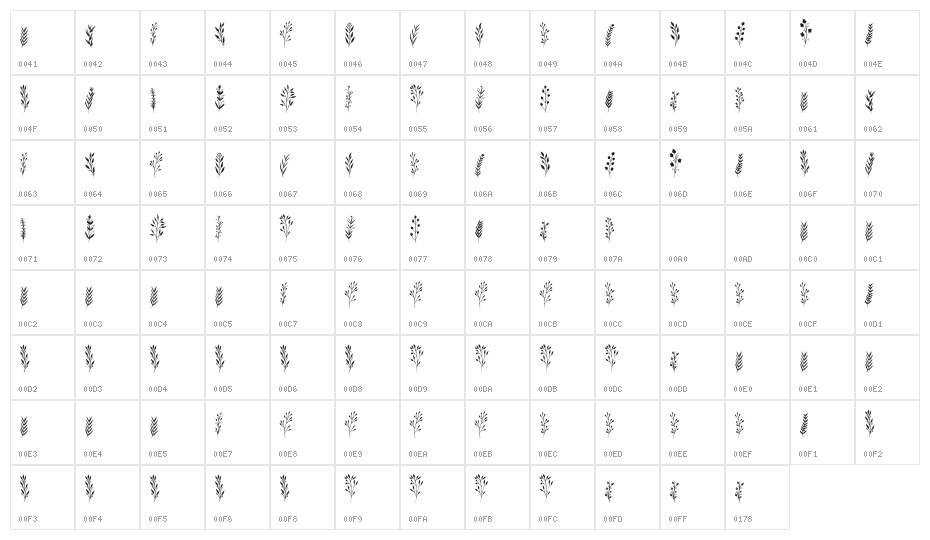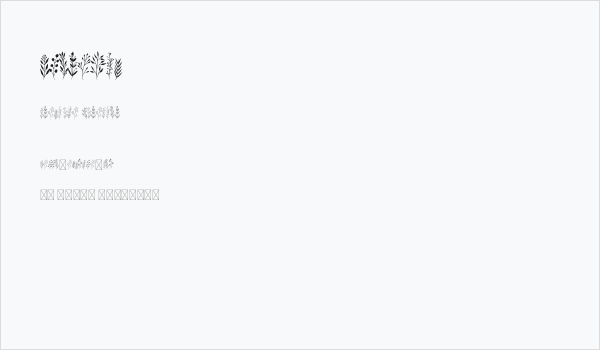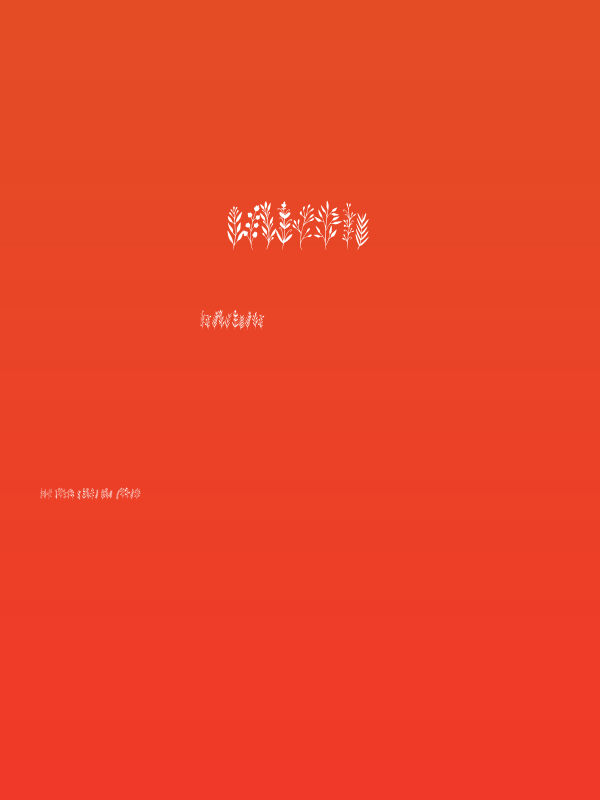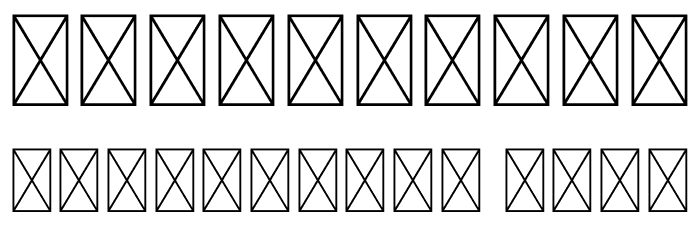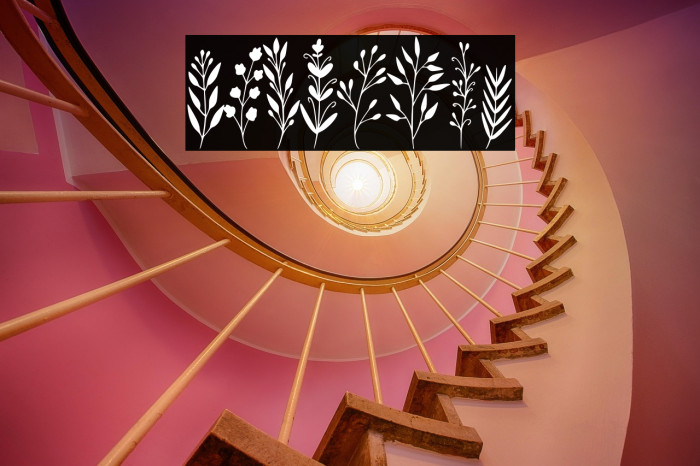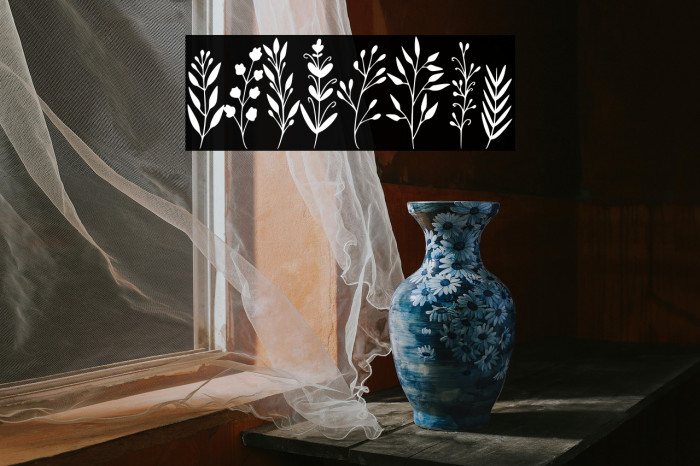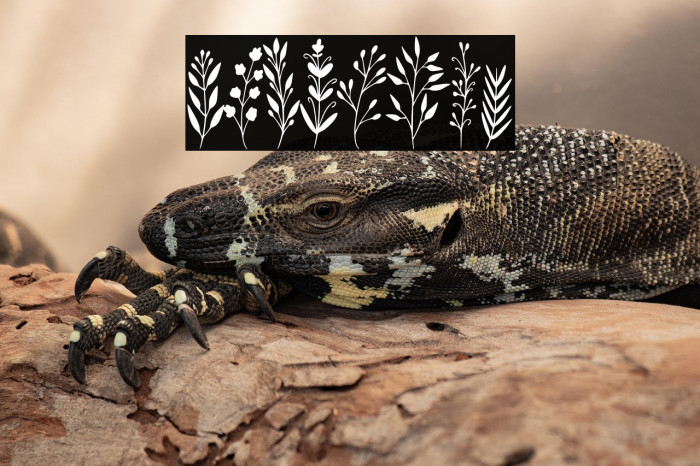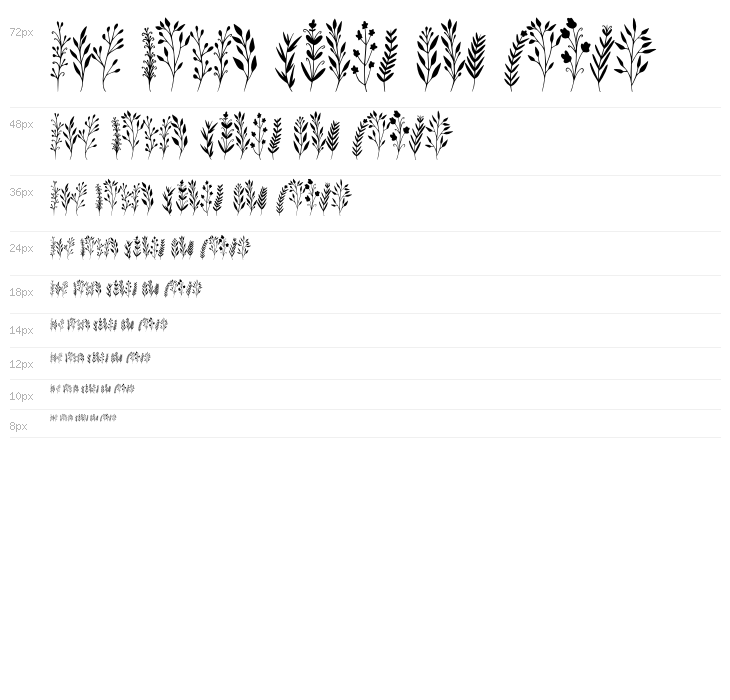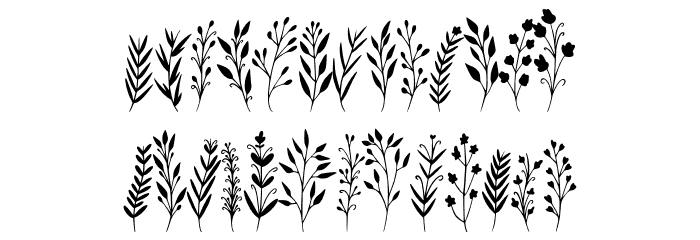
Floresta Font
Floresta Description
A decorative set of hand-drawn botanical illustrations featuring various leafy branches and floral elements, with consistent line thickness and organic, whimsical shapes. The set also includes outlined geometric boxes with X marks, likely as placeholders.
| Overall Style | Decorative, Hand-drawn, Organic |
| Use Case | Decorative elements, Illustrations, Borders, Accents |
| Proposed Projects | Wedding invitations, greeting cards, packaging, branding, decorative borders, digital scrapbooking. |